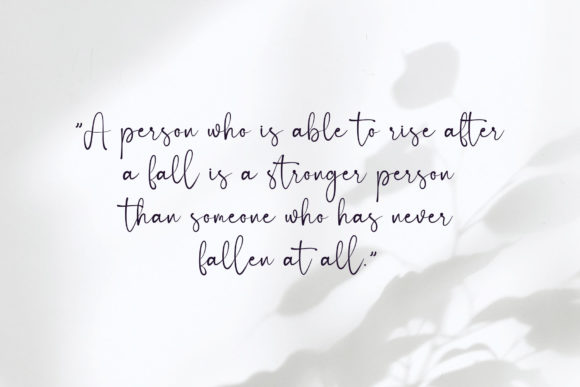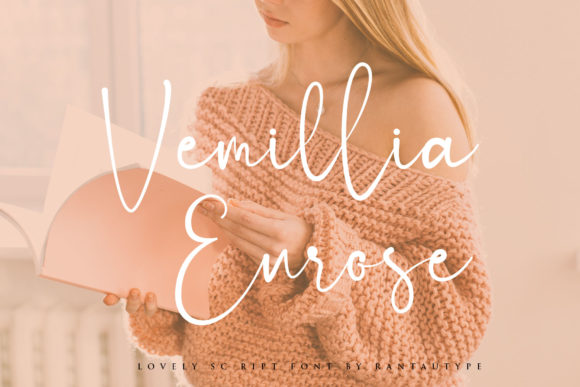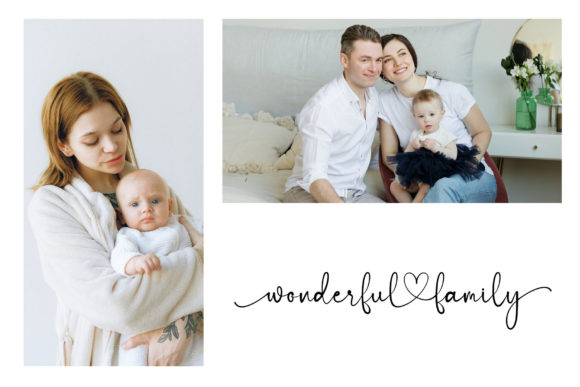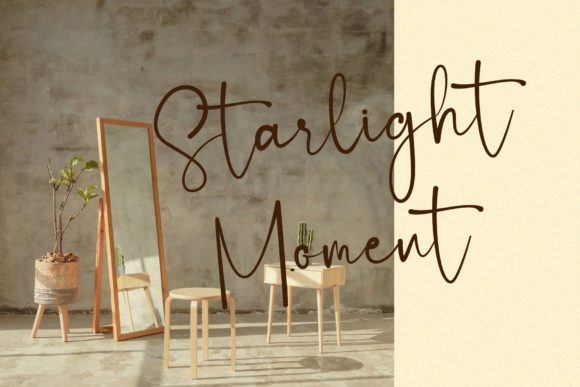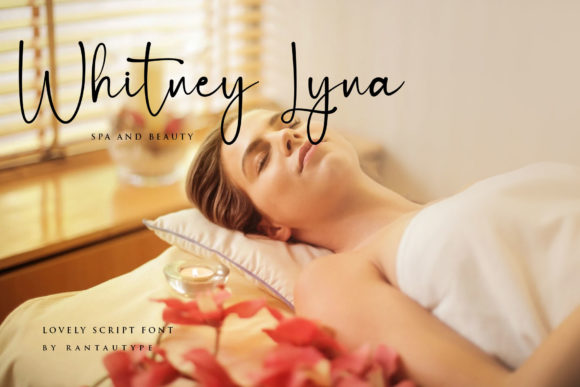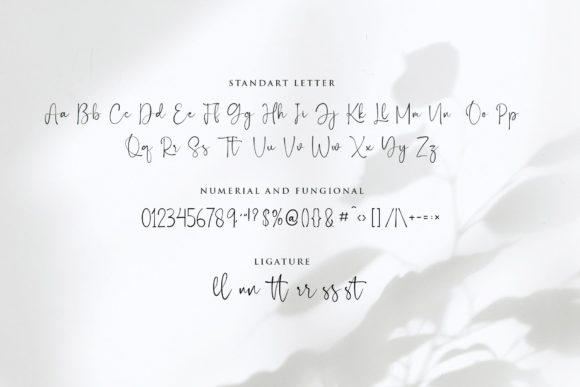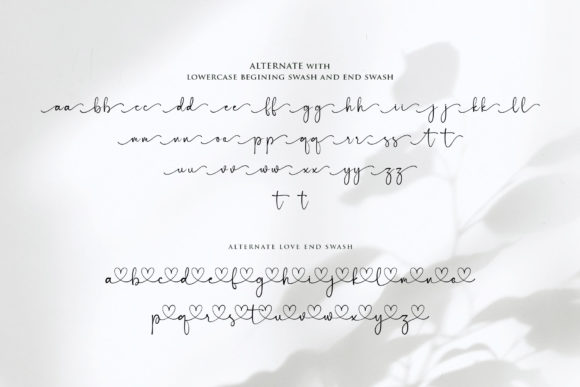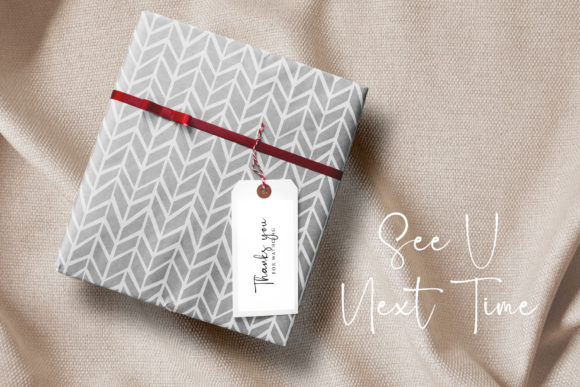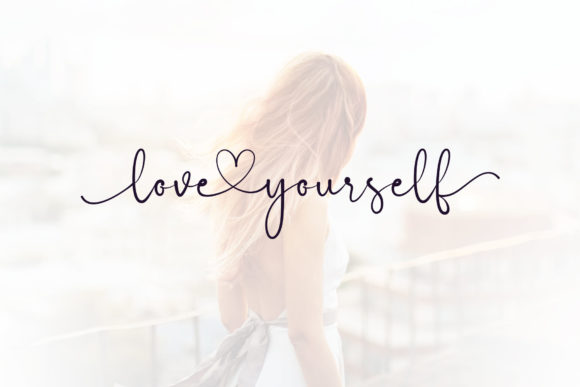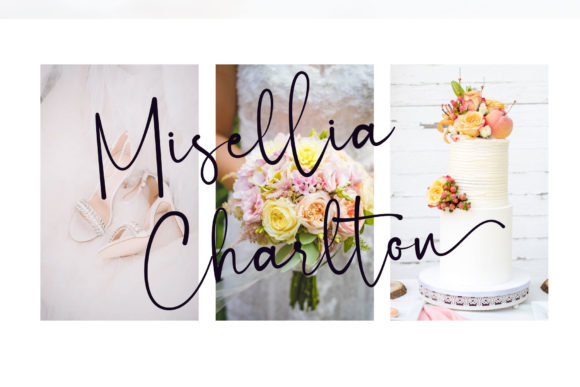
Hello Famous Font
About Hello Famous Font
Hello Famous is an elegant and sweet script with a romantic spark. Use it to add that special enchanting touch to any design idea you can think of!